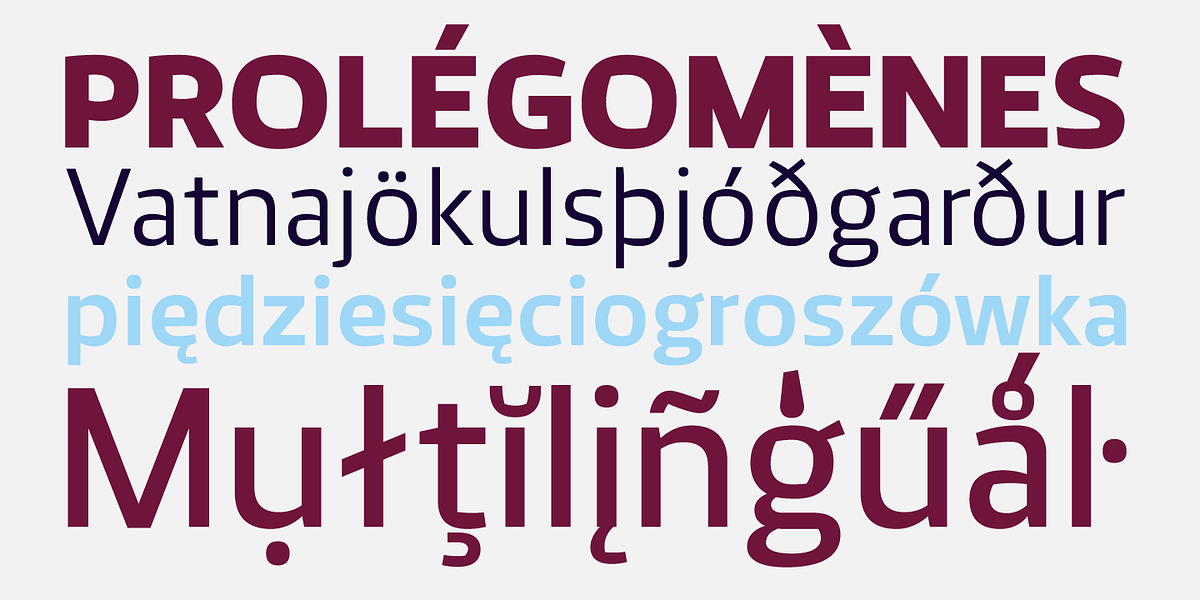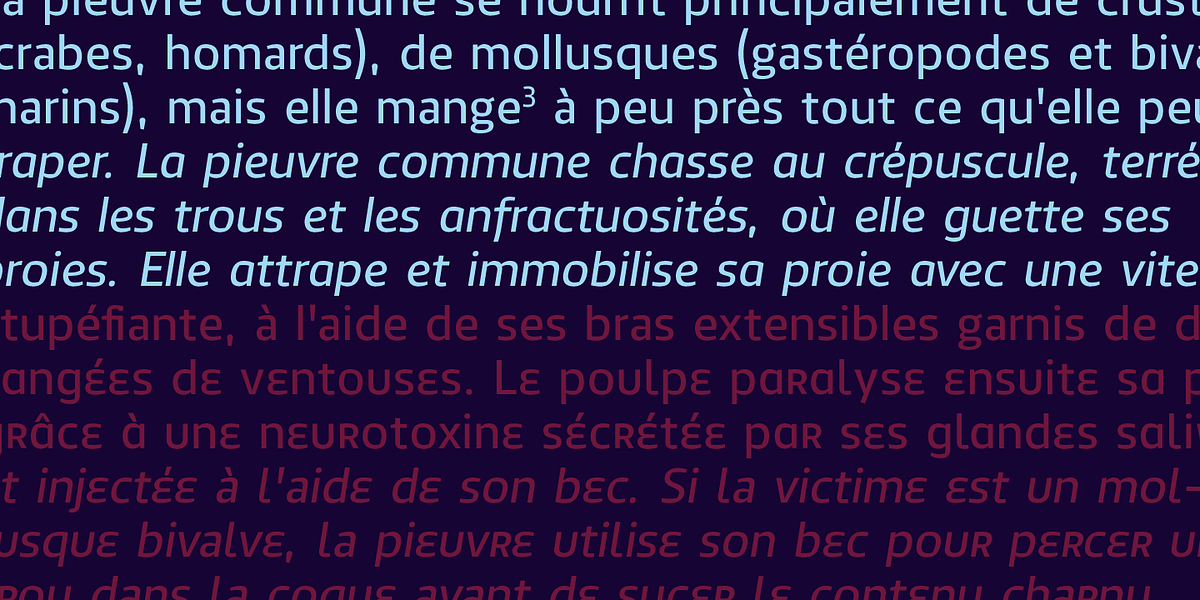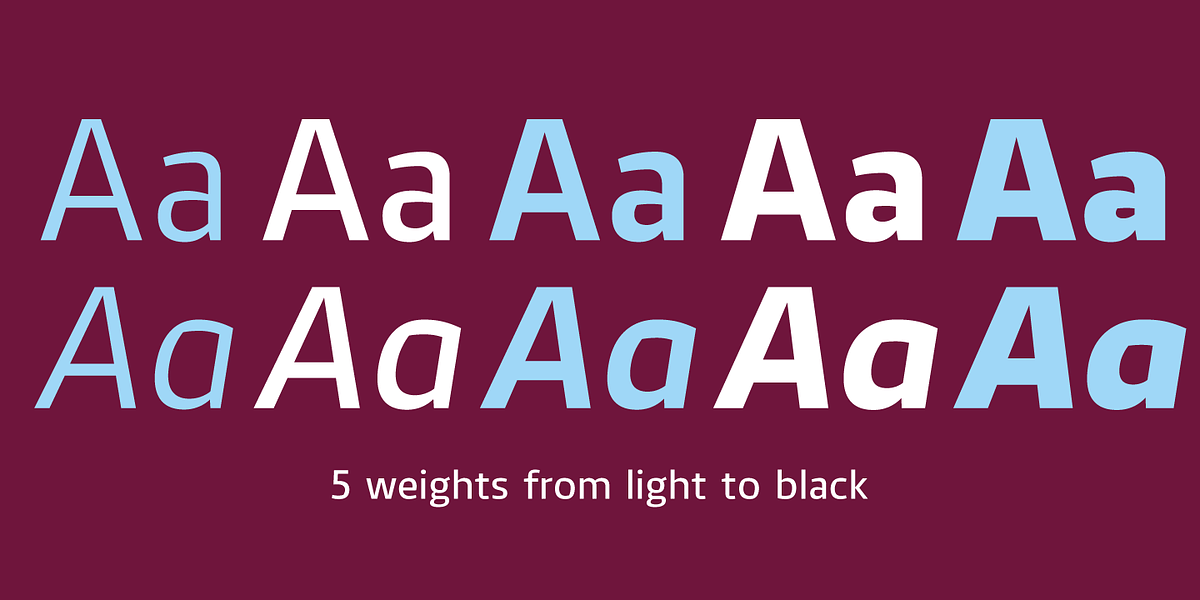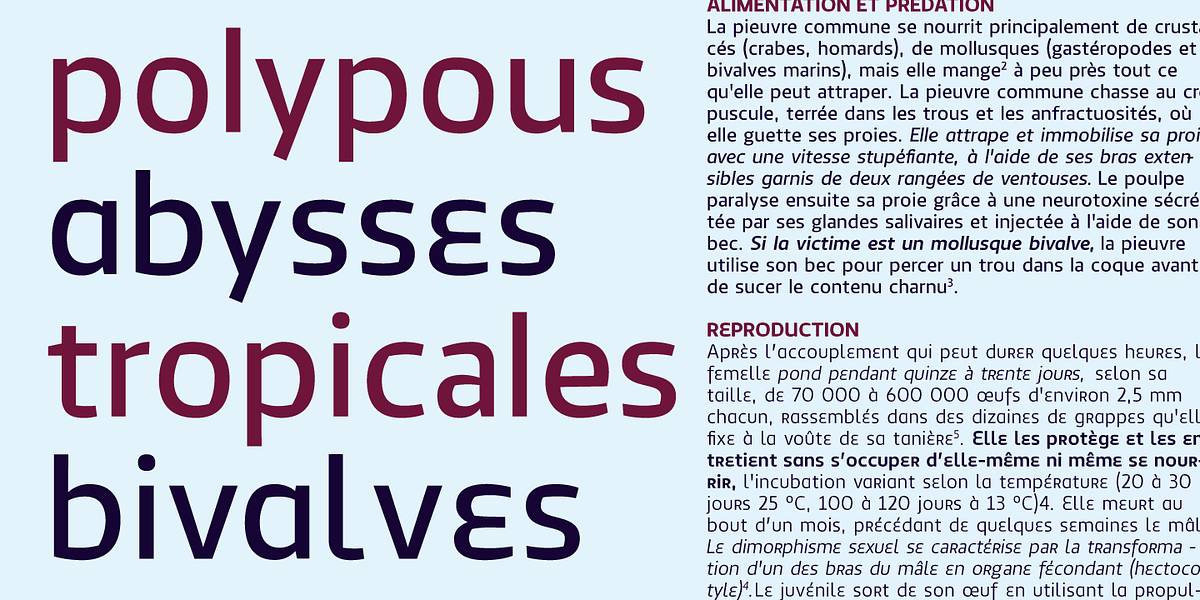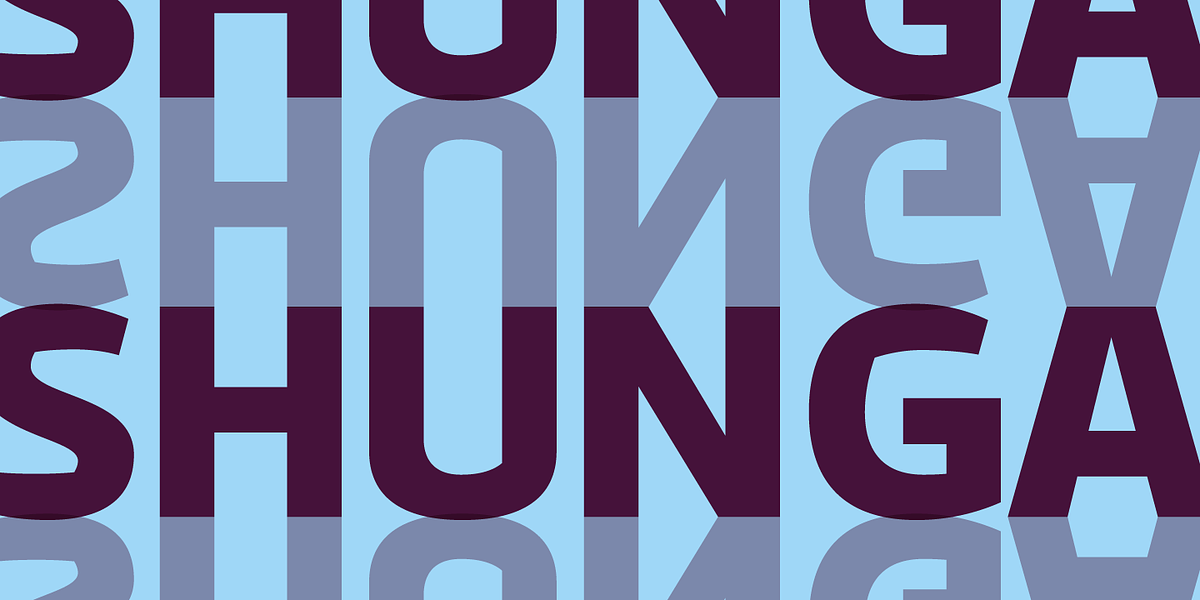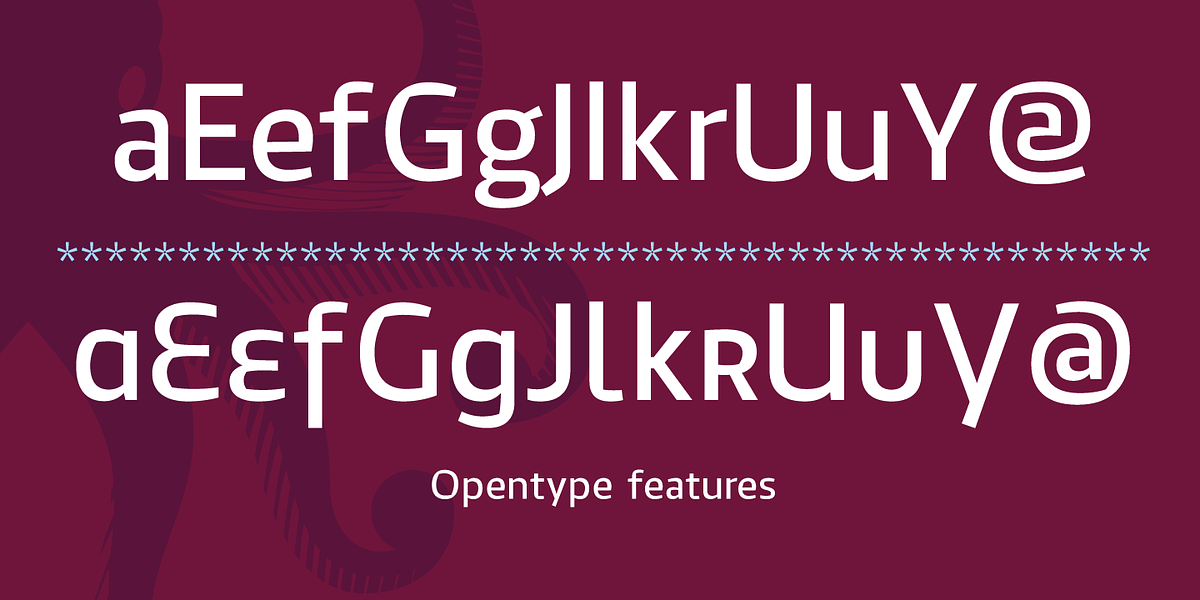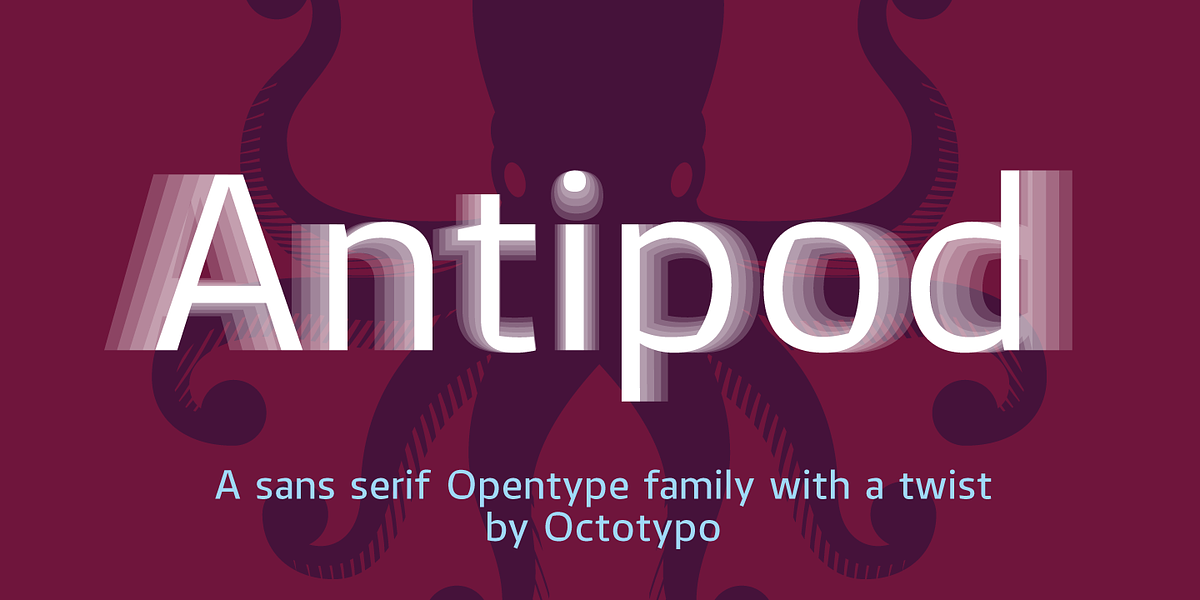
Antipod
Antipod is a sans serif typeface with calligraphic influences. Its design balances sharp corners with curved strokes, resulting in a distinct and versatile font. The typeface's unique characteristics make it suitable for both text and display settings. It includes additional glyphs to enhance text customization and offers extended language support, tabular figures, and fractions. Antipod is well-suited for editorial design, signage, corporate branding, and onscreen applications.